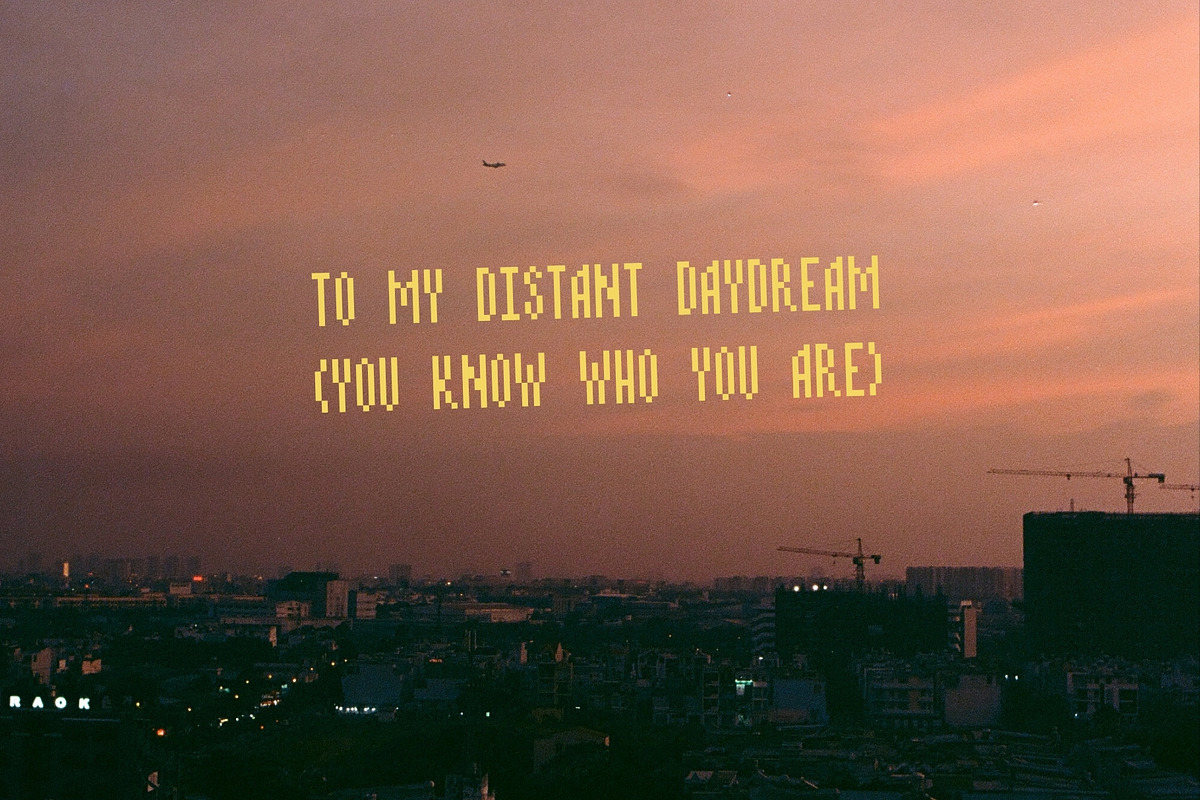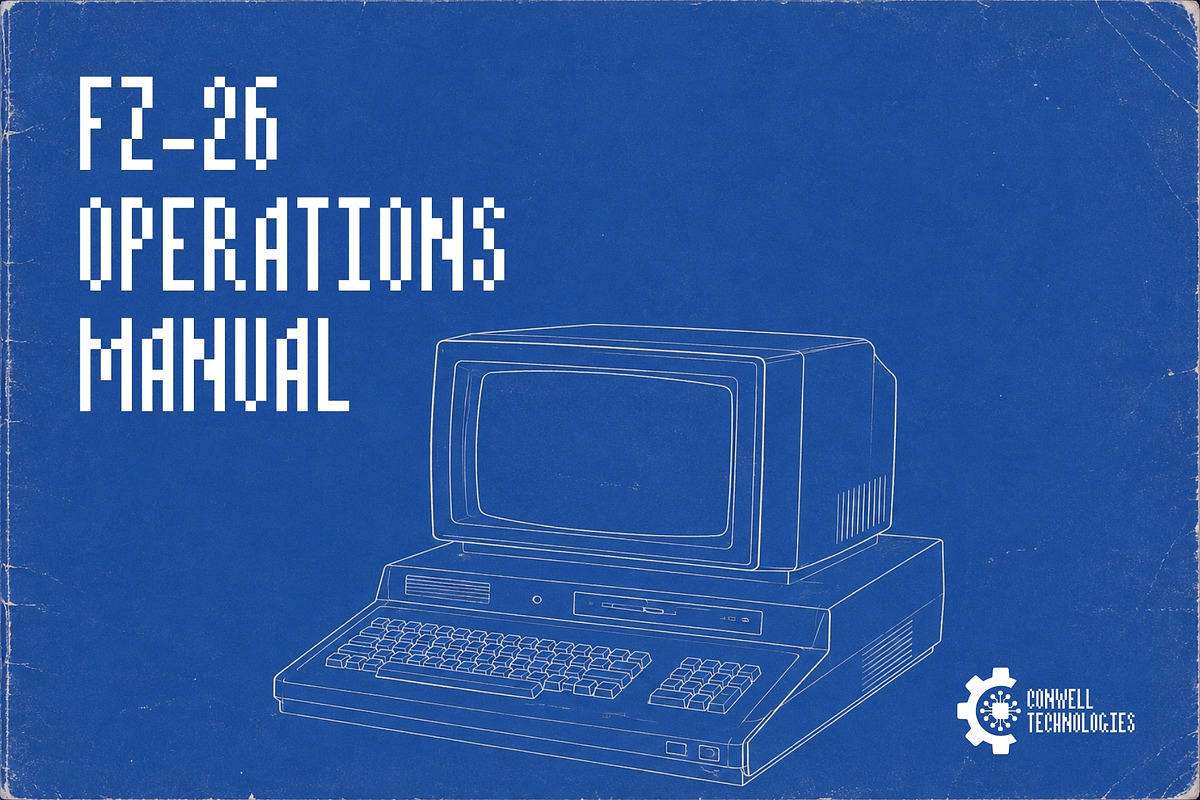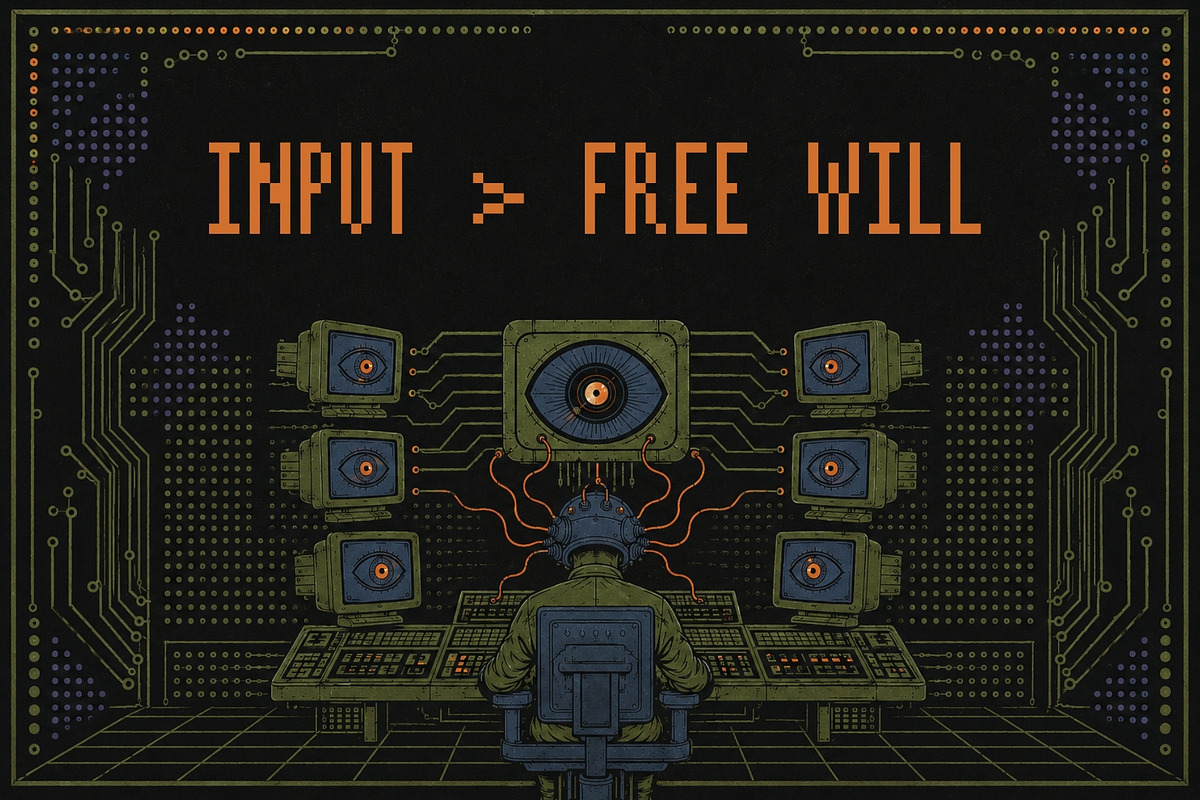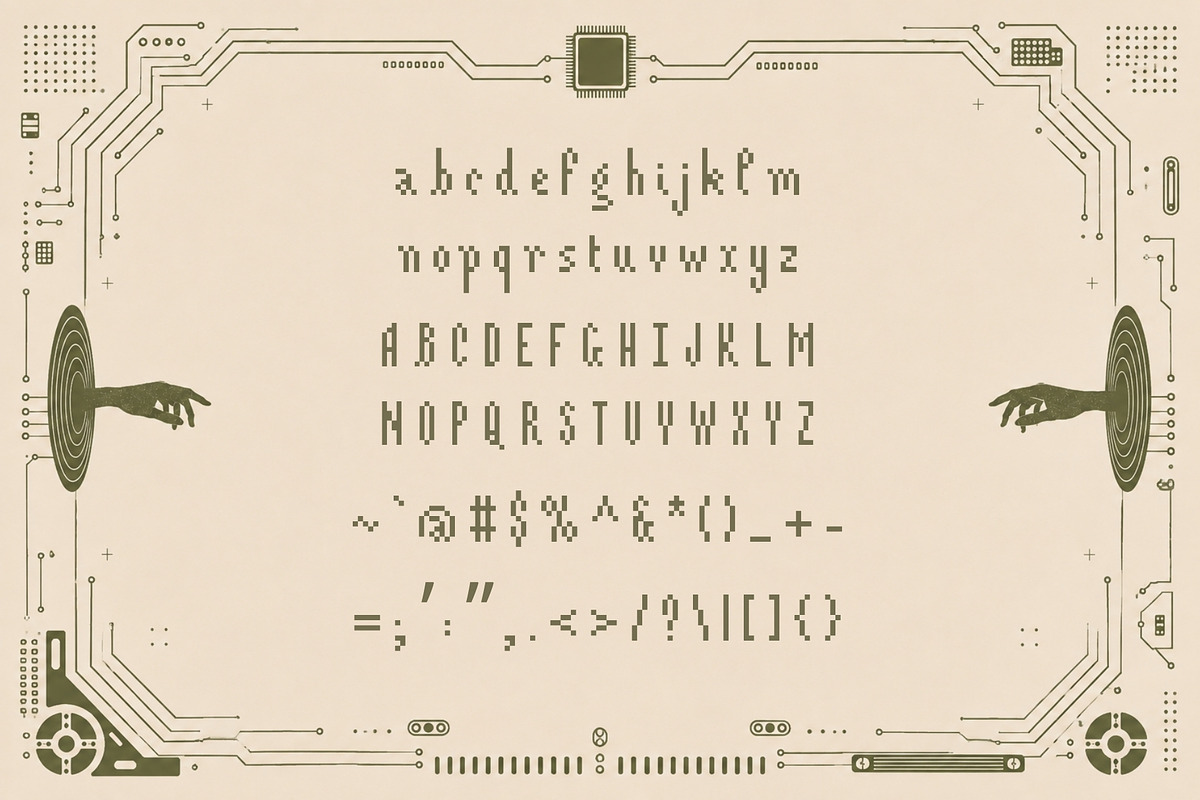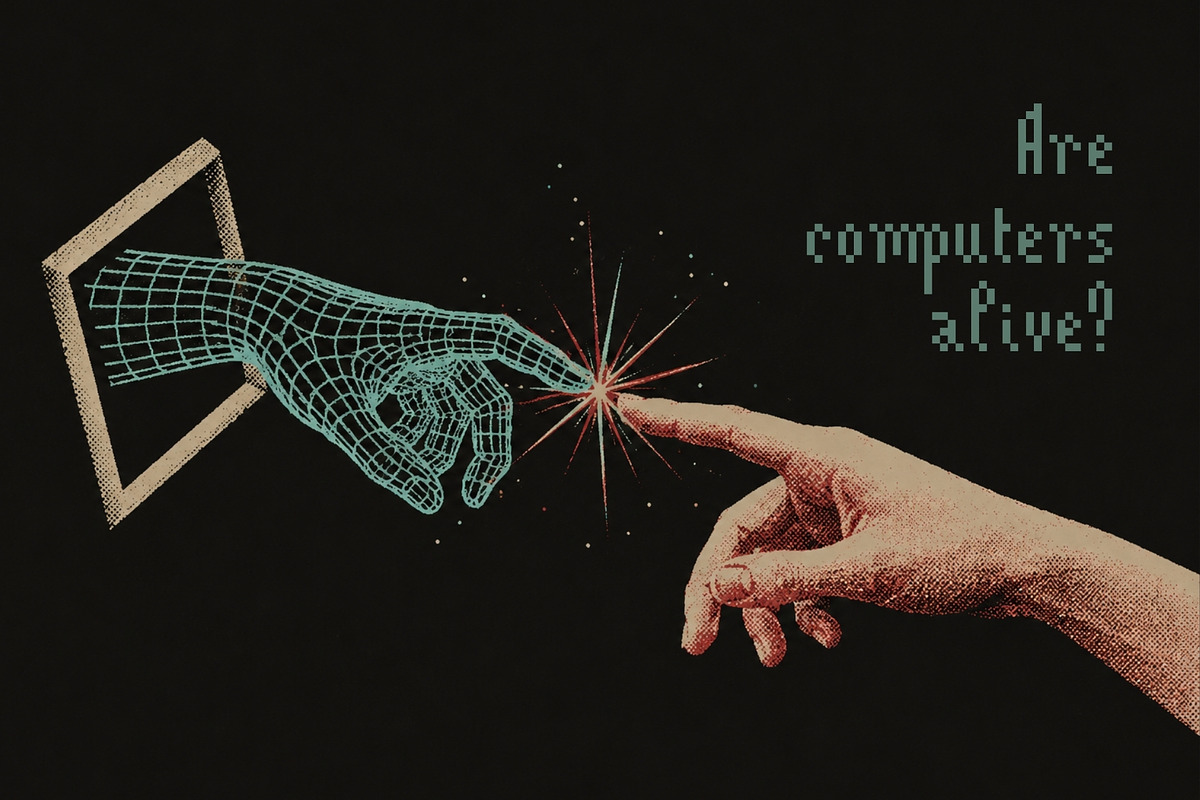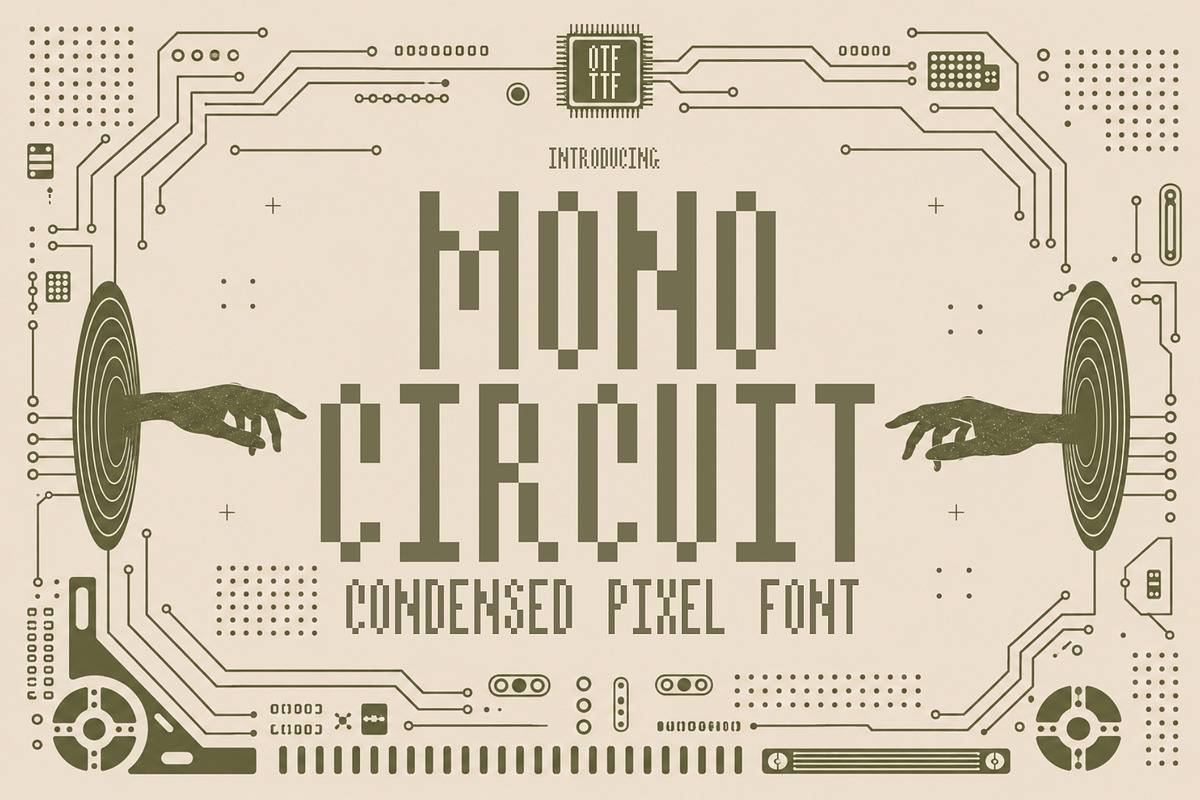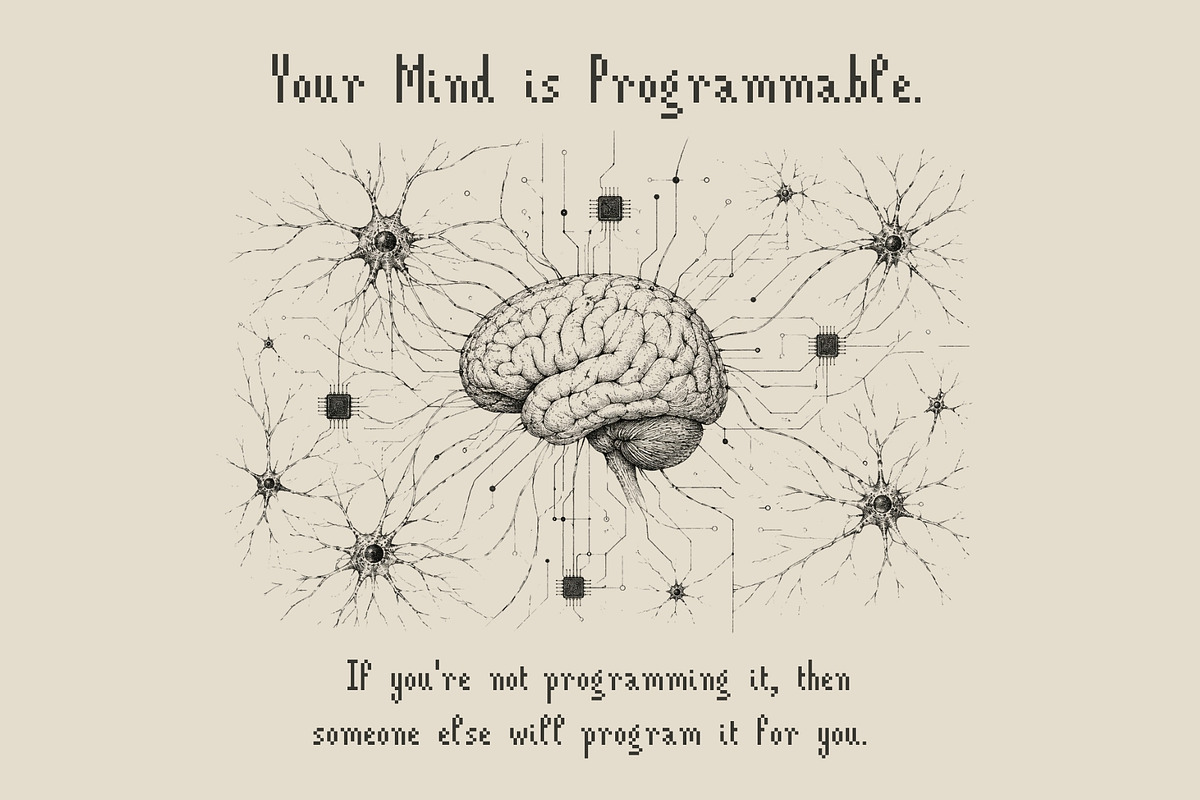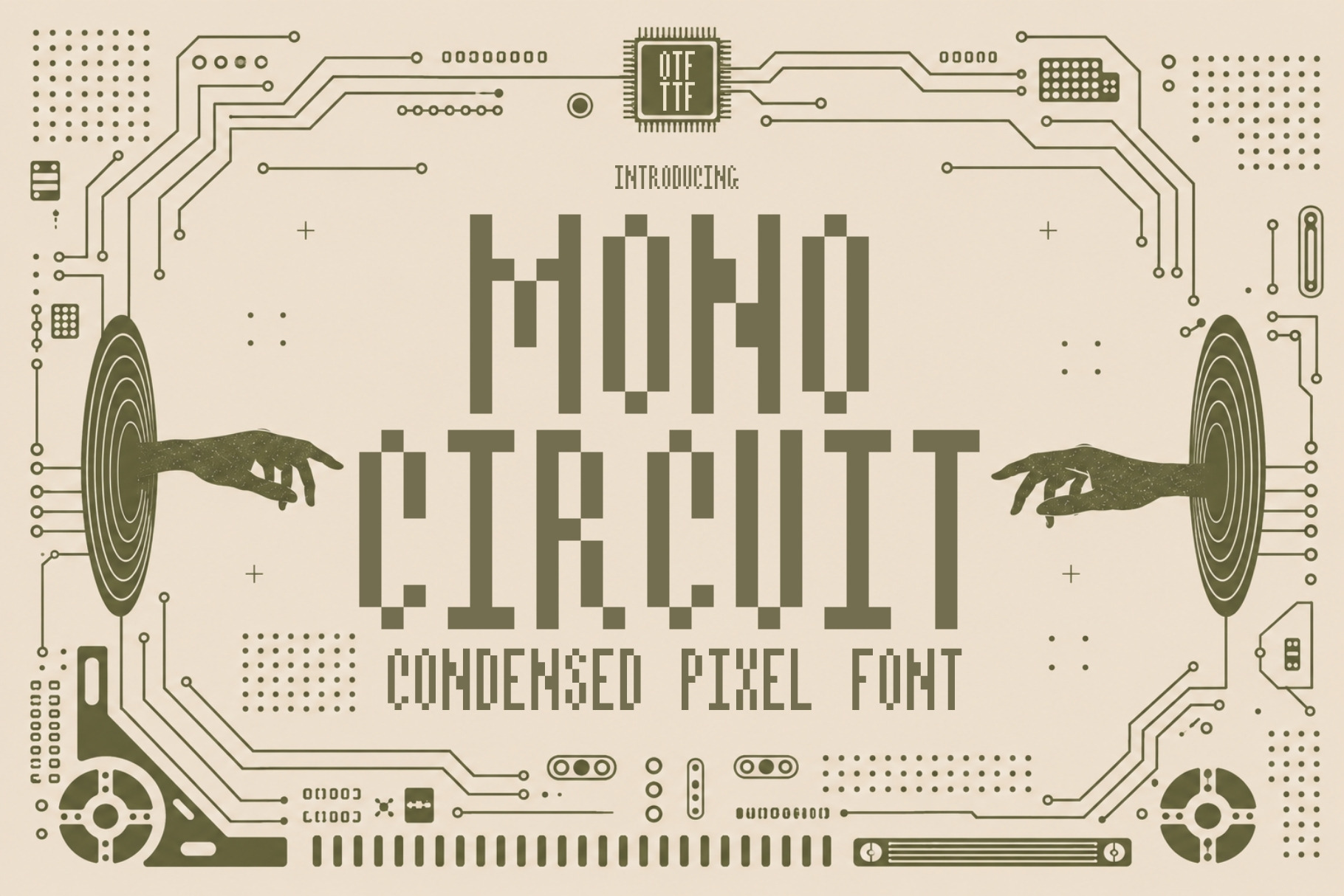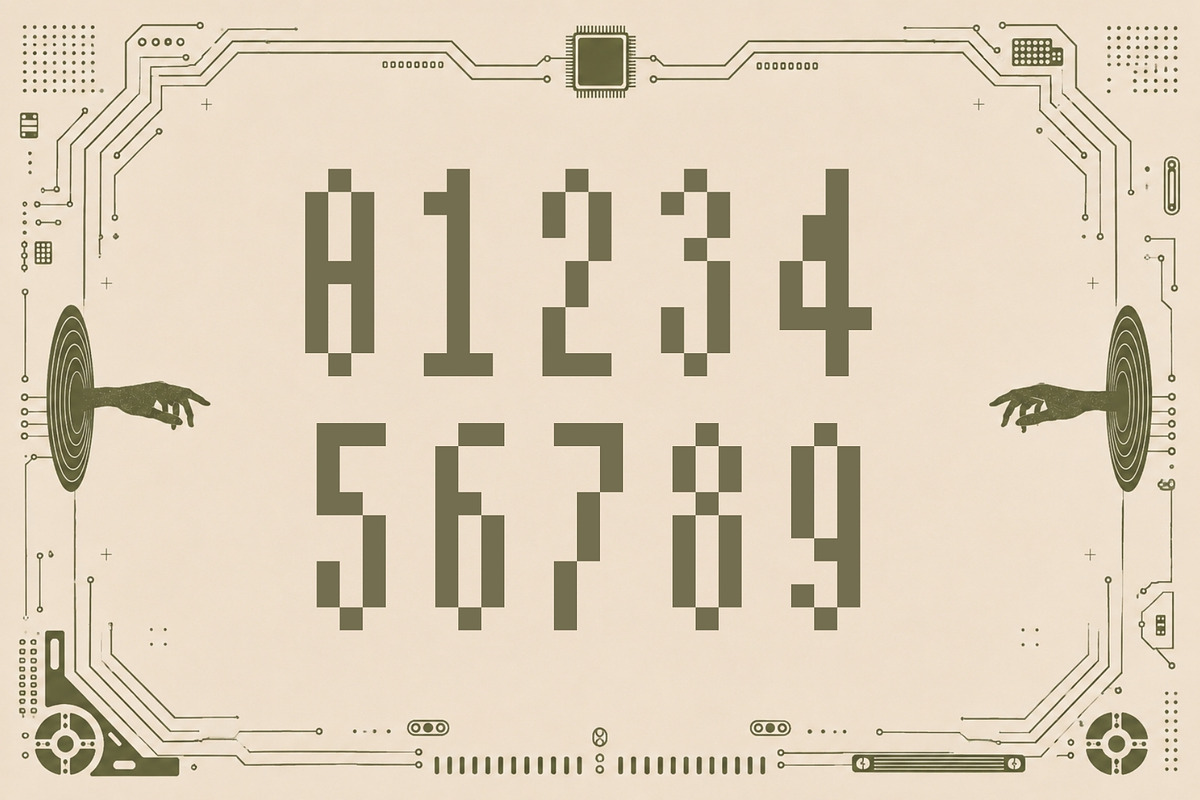
Mono Circuit - Condensed Pixel Font
Meet Mono Circuit, a condensed pixel font built for tight spaces, bold ideas, and modern digital design.
Inspired by early computer graphics, retro terminals, arcade interfaces, and futuristic technology, Mono Circuit combines crisp pixel construction with a narrow, space-saving silhouette. Its condensed proportions give layouts a sharp, efficient rhythm, while the geometric letterforms keep everything unmistakably digital.
Unlike many pixel fonts that rely entirely on capitals, Mono Circuit includes both uppercase and lowercase letters, giving you far more flexibility when building headlines, logos, interface graphics, posters, and longer pieces of text. The result is a versatile pixel typeface that can feel nostalgic, technical, futuristic, or experimental depending on how you use it.
Mono Circuit is ideal for technology branding, video games, app interfaces, posters, advertisements, film titles, album artwork, websites, editorial layouts, packaging, merchandise, streaming graphics, esports, startup identities, and retro-futuristic design.
Its narrow construction is especially useful for oversized headlines, vertical compositions, compact layouts, and designs where you want to fit more typography into limited space without losing visual impact.
Whether you're creating a fictional operating system, designing a cyber-inspired campaign, developing an indie game, or building a modern tech brand with a retro digital edge, Mono Circuit delivers pixel typography with precision, personality, and serious visual energy.
Condensed. Digital. Modular. Wired for creativity.